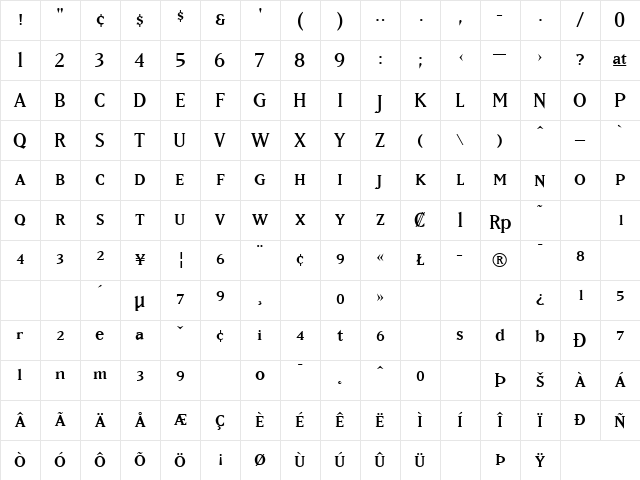
MatrixRegularSmallCaps Regular
Design Context for MatrixRegularSmallCaps
MatrixRegularSmallCaps is a composed and adaptable typeface that performs quietly and consistently across a wide range of design contexts.